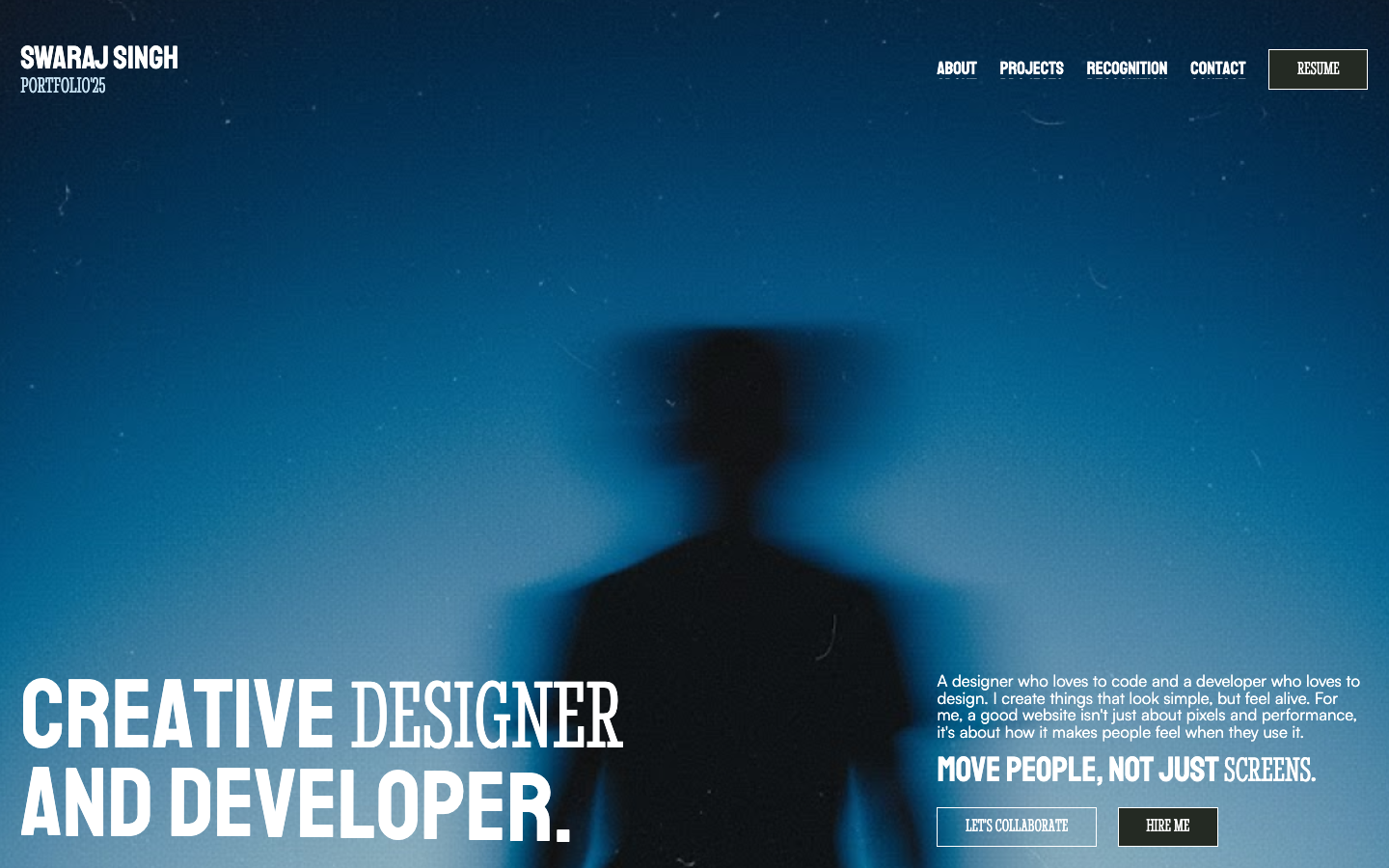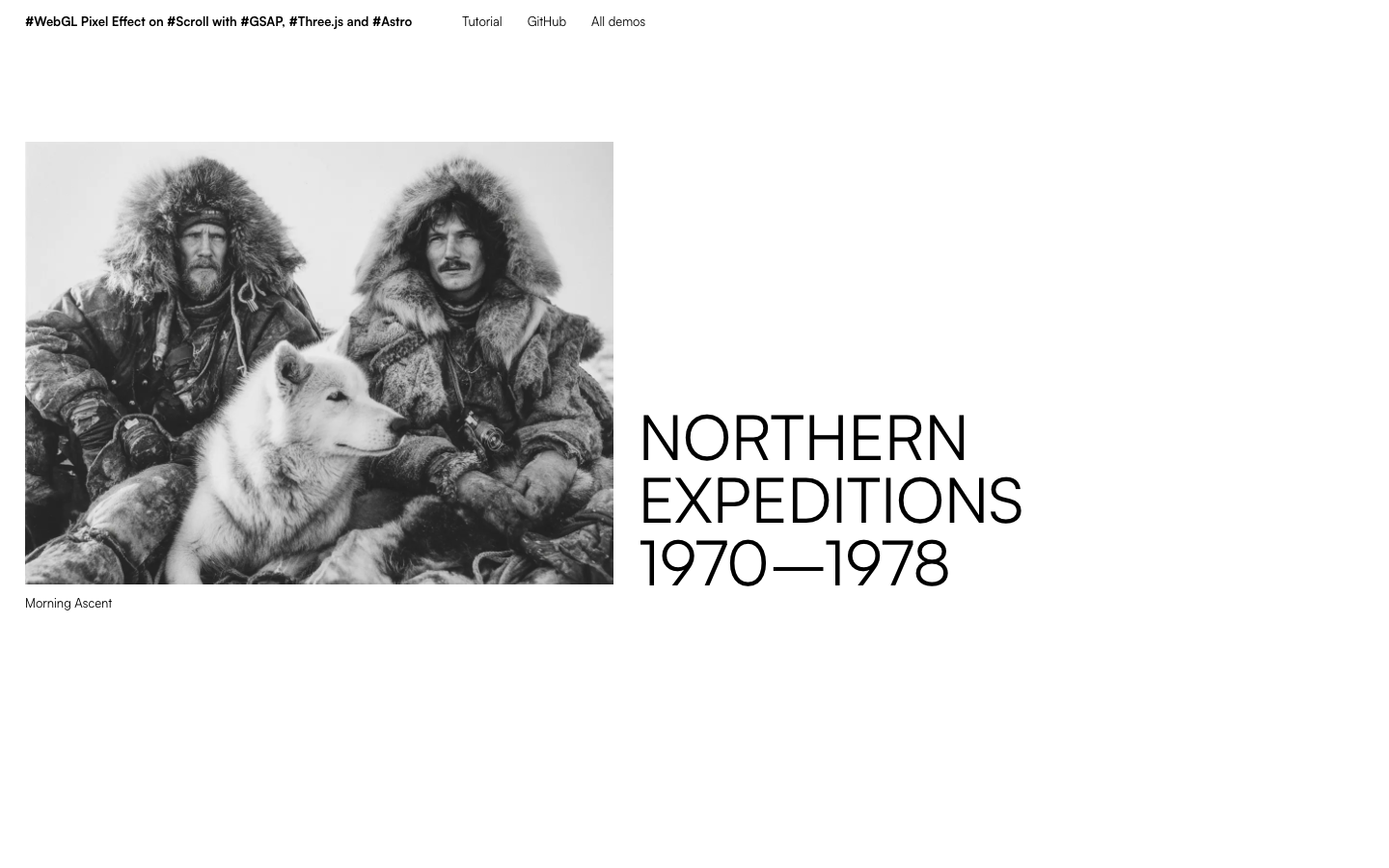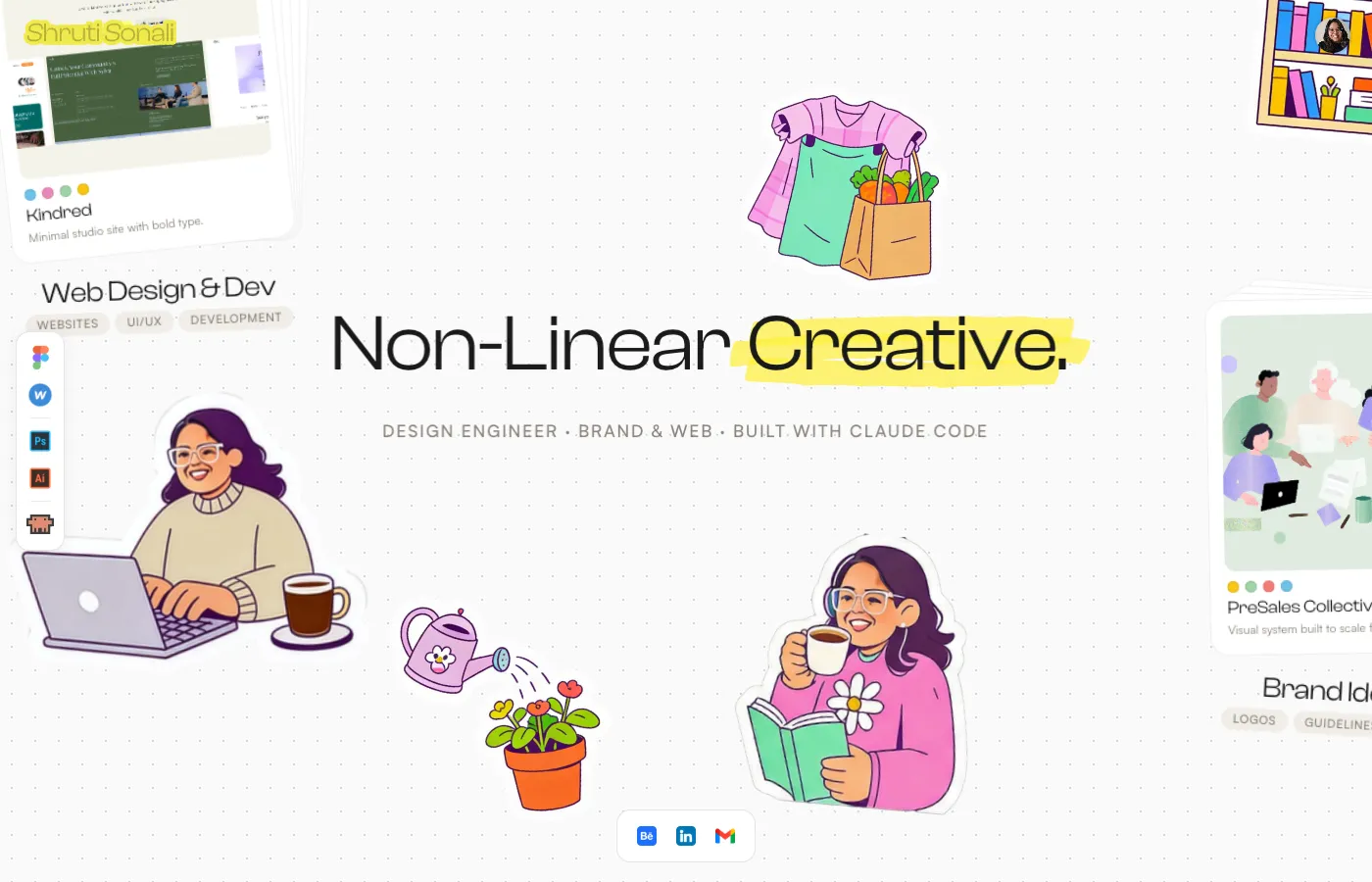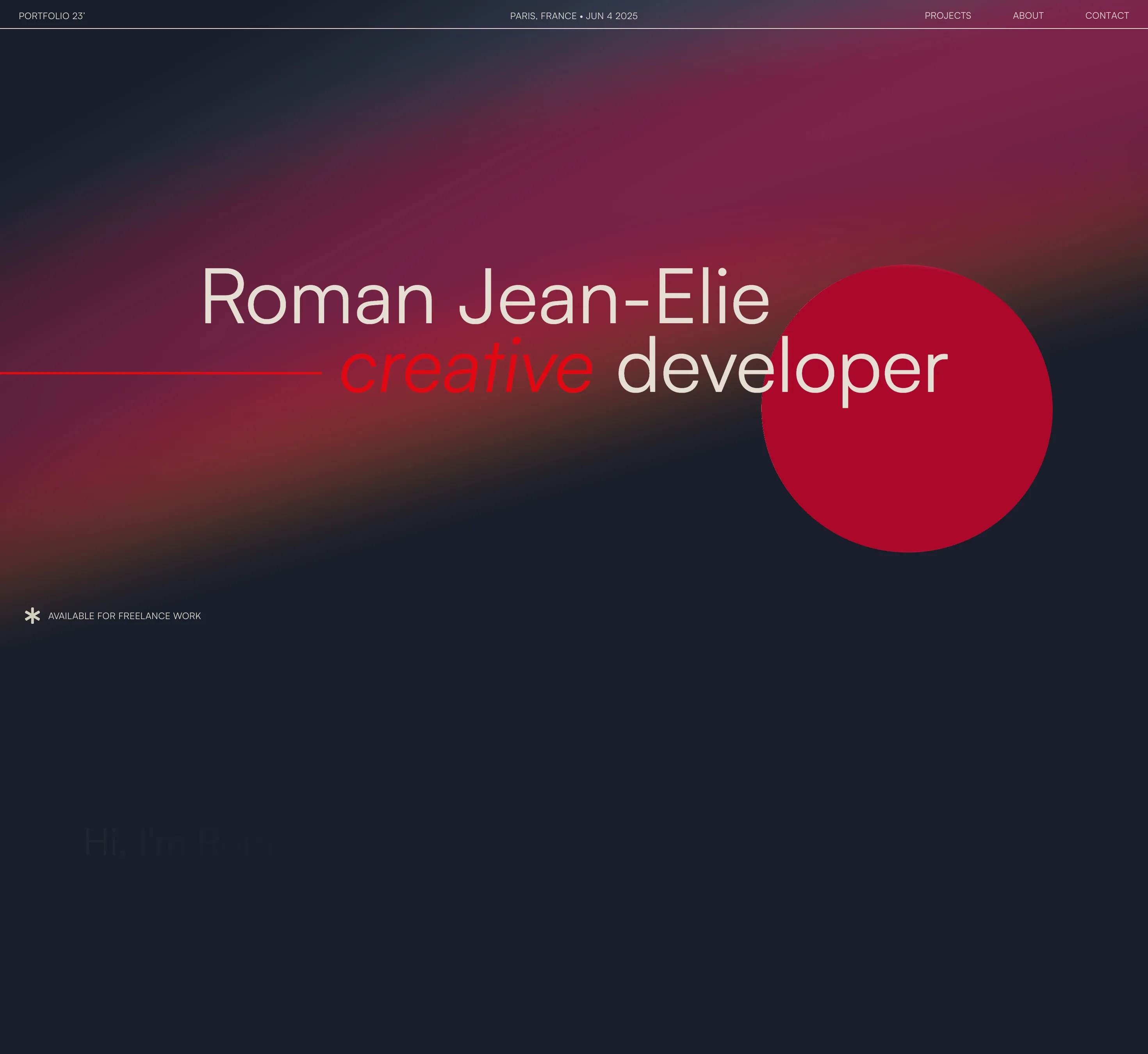
The Satoshi font on real websites
10 websites set in Satoshi, with their font pairings and stack.
Satoshi is a free modernist geometric sans-serif by Indian Type Foundry. A modernist sans that mixes geometric and grotesque details, free for commercial use on Fontshare. A popular step away from Inter on design-led sites.
Sans-serif, modernist geometric sans-serif
Indian Type Foundry
10 websites in the save.design library use Satoshi. It shows up most on portfolio and SaaS sites. It's most often paired with Instrument Serif, Albert Sans and Itc Garamond Std Light Narrow. Sites using Satoshi are most often built with React (30%).
Which websites use Satoshi?
Recent examples include thetinypod.com, epiminds.com, portfoliobyshruti.com and daspritam.in. All 10 websites using Satoshi are on this page, with the rest of their fonts and their tech stack.
What fonts pair well with Satoshi?
On real sites, Satoshi is most often set alongside Instrument Serif (20% of them), Albert Sans (10% of them) and Itc Garamond Std Light Narrow (10% of them).